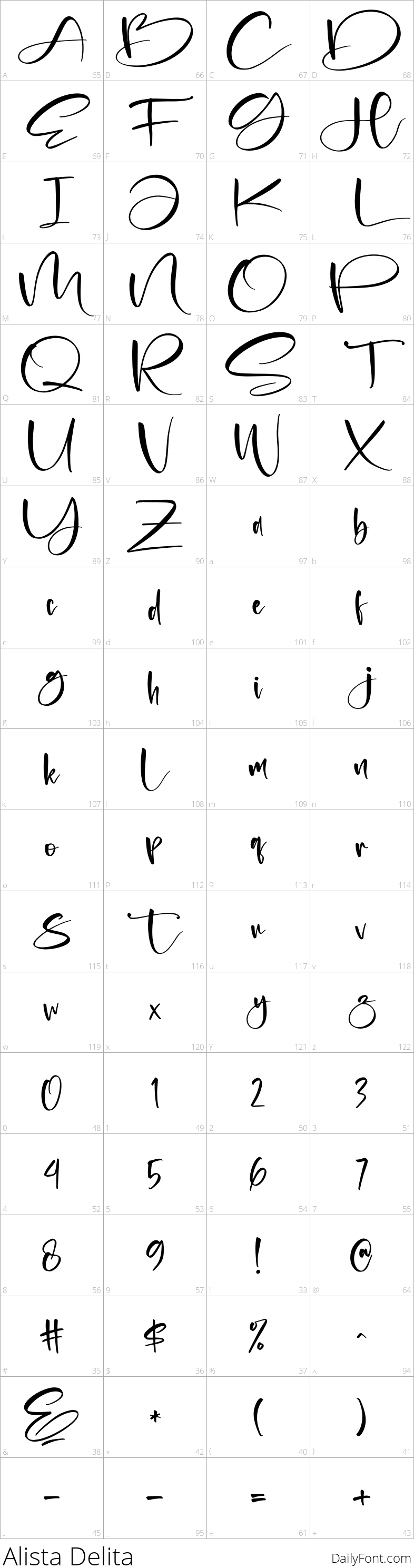
Alista Delita
Introducing Alista Delita, a truly exceptional script font that is sure to catch the eye and leave a lasting impression. What sets Alista Delita apart is its distinctive and captivating design, making it a valuable addition to your fonts' library. No matter the topic or theme of your creative project, this font has the potential to elevate your work to a whole new level of excellence.
Alista Delita's unique character and artistic flair make it a versatile tool for designers, artists, and creatives across various fields. Its elegant and eye-catching letterforms breathe life into any project, adding a touch of sophistication and originality. Whether you're working on branding, invitations, posters, or any other creative endeavor, Alista Delita ensures that your work stands out from the crowd.
Imagine using Alista Delita for a branding project. Its distinctive style and visual appeal can help establish a memorable brand identity that resonates with your target audience. The font's versatility means it can adapt seamlessly to different industries and niches, making it a valuable asset for businesses and designers alike.